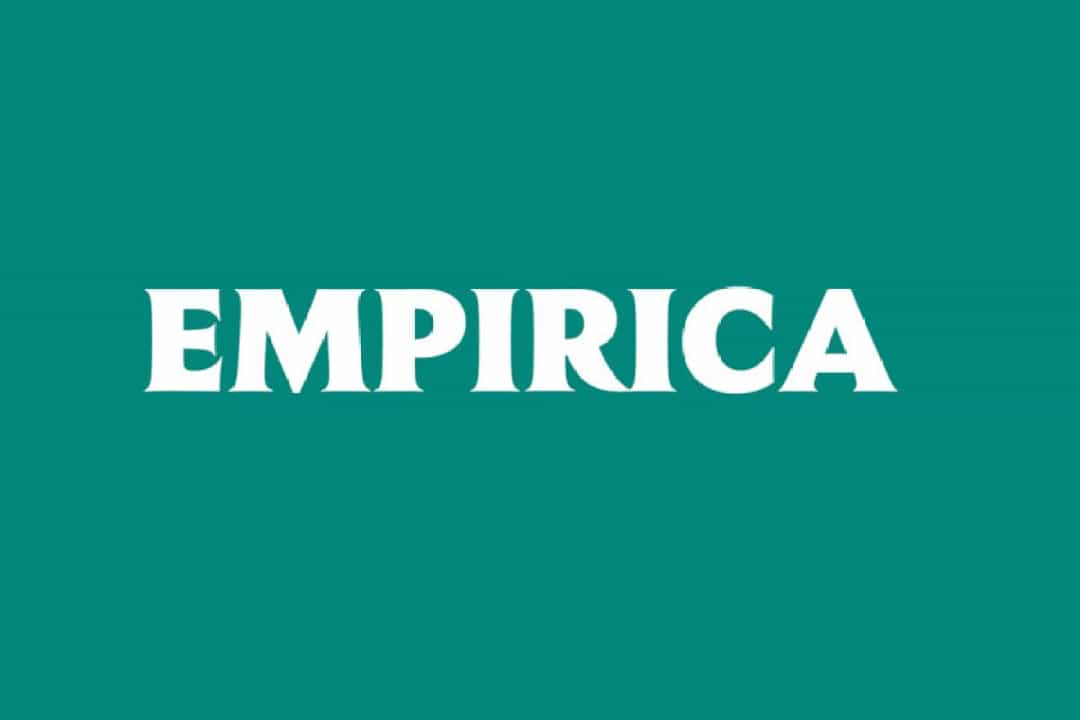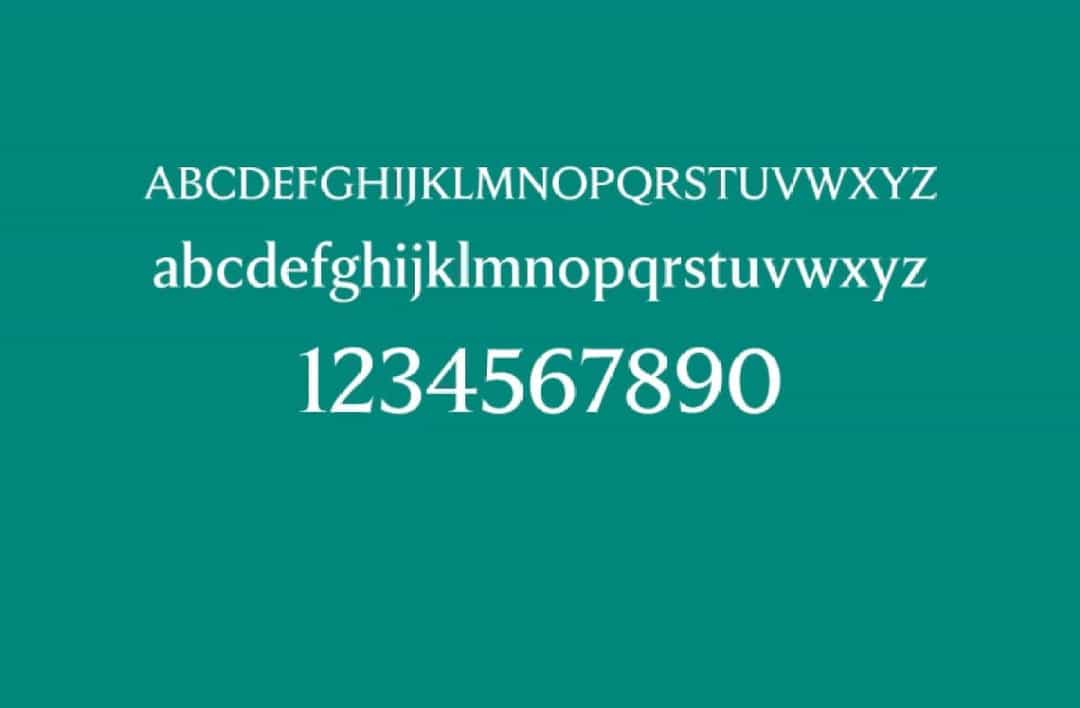
Empiricais a contemporary serif typeface family designed with narrow letterspace and elegant simplicity in mind, first used for headlines in magazines. Due to extensive research and development by designers Tobias Frere-Jones and Nina Stossinger, six weights that include italics were created.